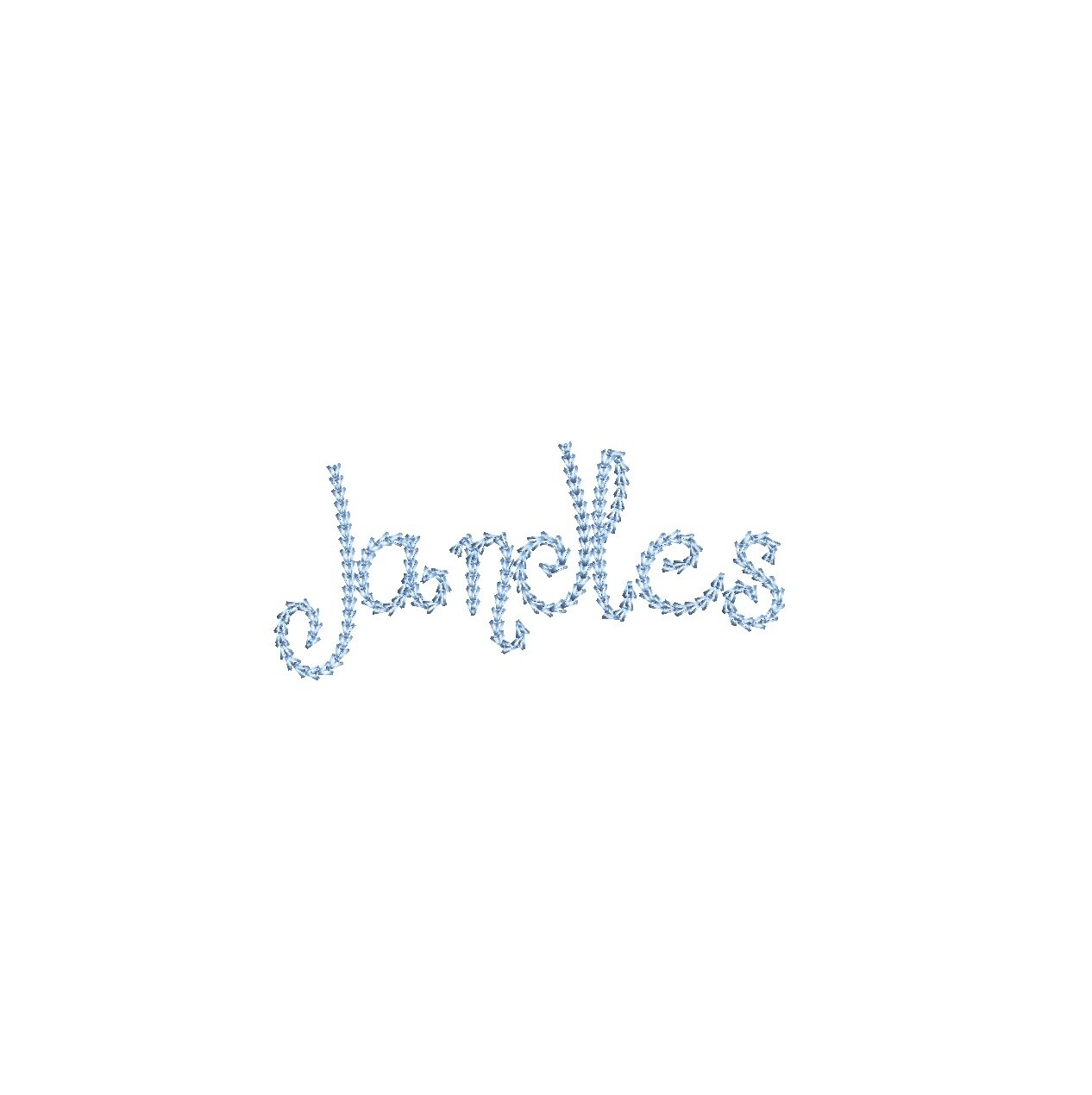
Elevate your embroidery with Jandles Chain Stitch ESA font. Perfectly compatible with Wilcom Studio e4.5.6 and Hatch 3 versions and newer, it adds a touch of casual elegance to your designs. Meticulously crafted, the font's chain stitch artistry enhances depth and allure in every project. Seamlessly integrate for captivating results that stand out. Jandles transforms fabric into a canvas of creativity, infusing your creations with relaxed charm. Elevate your embroidery with this seamless blend of technology and artistry. Experience the magic of Jandles Chain Stitch ESA font to redefine stitching excellence. Upgrade your designs today for effortless impact.